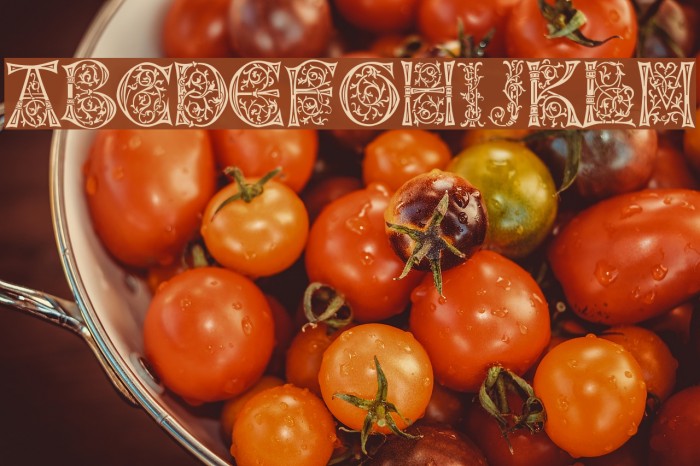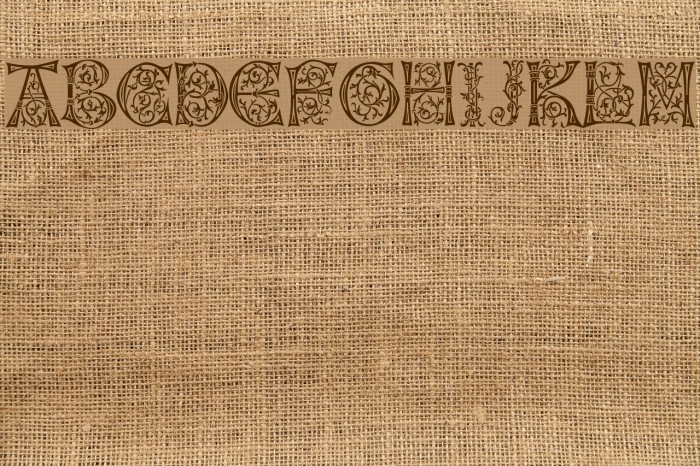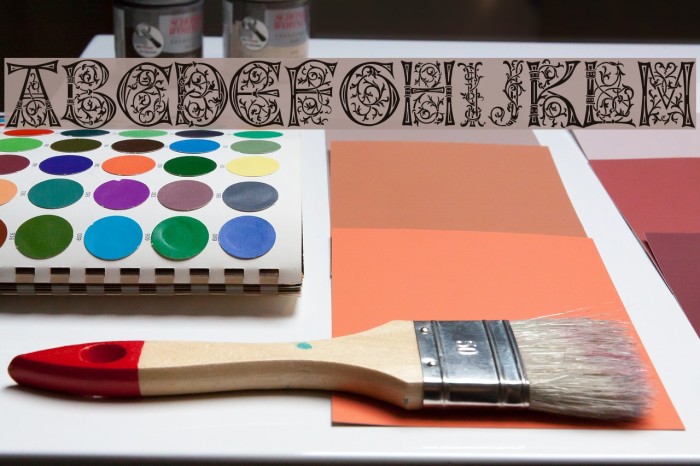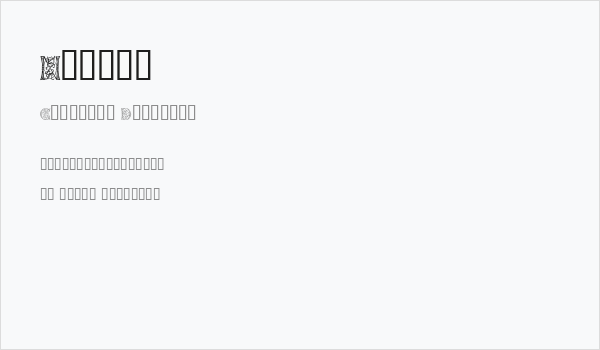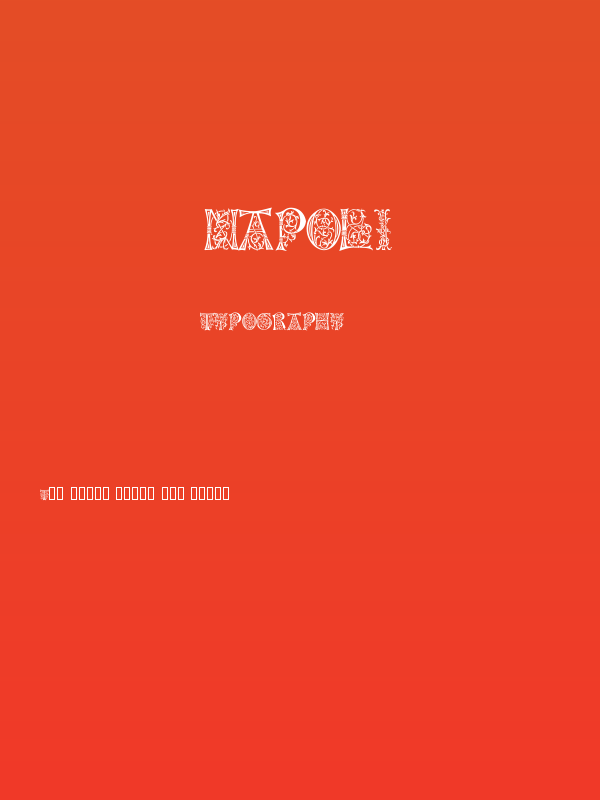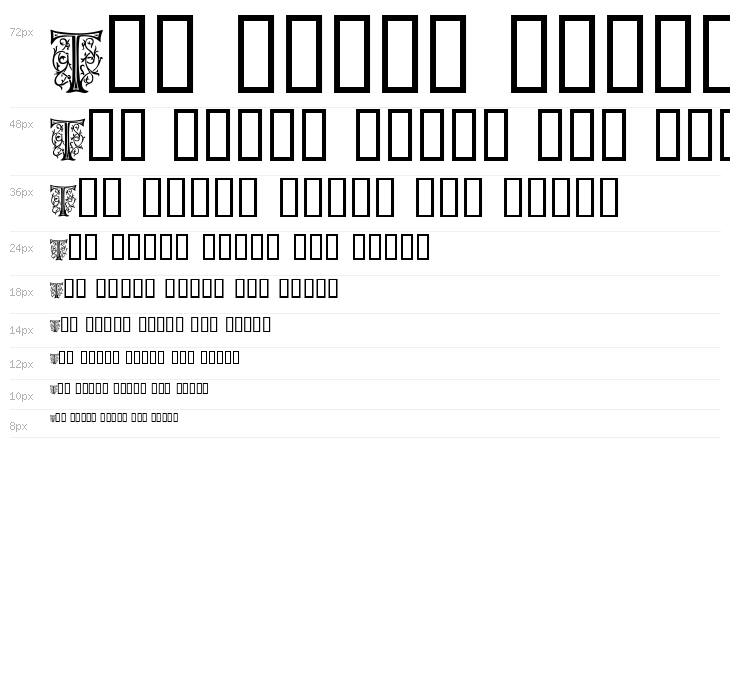
Napoli Font
Napoli Description
This font is a highly decorative and ornate typeface characterized by intricate floral and vine-like patterns within each letterform. The uppercase letters are bold and elaborate, with each character featuring unique embellishments that create a sense of elegance and complexity. The design is reminiscent of medieval or renaissance art, making it suitable for projects that require a touch of historical or artistic flair. The font's intricate details demand attention, making it ideal for display purposes where the text serves as a focal point.
| Proposed Projects | Ideal for wedding invitations, historical event posters, book covers for classic literature, or any project requiring a vintage or artistic touch. |